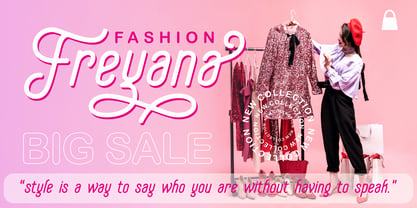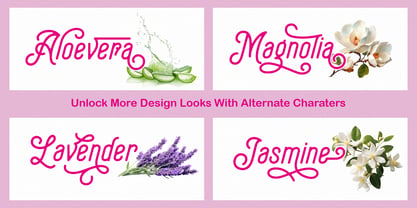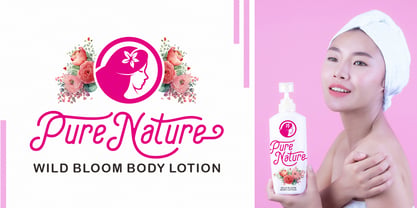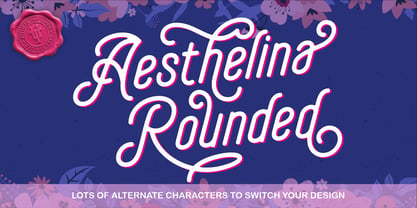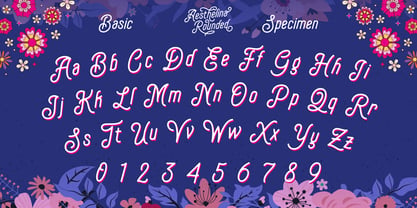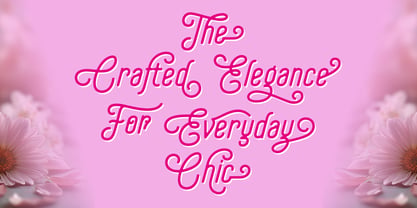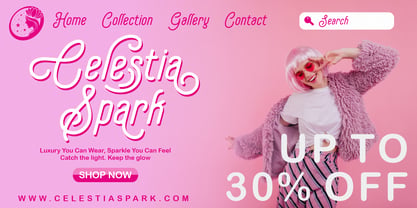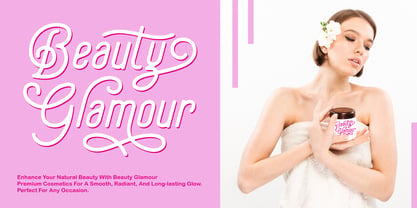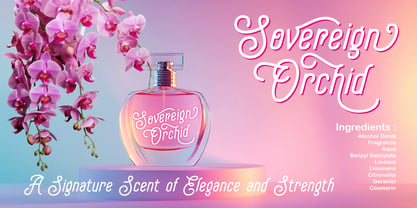
Aesthelina
The Aesthelina Font Family was designed by Ferry Septian and published by Uncurve. Aesthelina contains 1 styles. More about this family
Aesthelina – Elegant Rounded Monoline Display Font
Aesthelina is a refined rounded monoline display font designed to bring a soft, elegant, and modern touch to your designs. With its smooth curves and clean letterforms, this typeface delivers a feminine yet classy aesthetic while remaining highly readable. It also comes with a wide range of alternate characters, giving you the freedom to create unique and stylish compositions effortlessly.
Perfect for projects that require a beautiful and sophisticated look, Aesthelina is ideal for branding, postcards, greeting cards, wedding invitations, labels, packaging, fashion designs, magazines, book covers, jewelry branding, perfume labels, quotes, social media posts, and more. Its versatility allows it to shine in both minimal and decorative layouts.
Whether you're creating a luxury brand identity or a soft, modern design, Aesthelina adds a timeless elegance that elevates every project with grace and style.